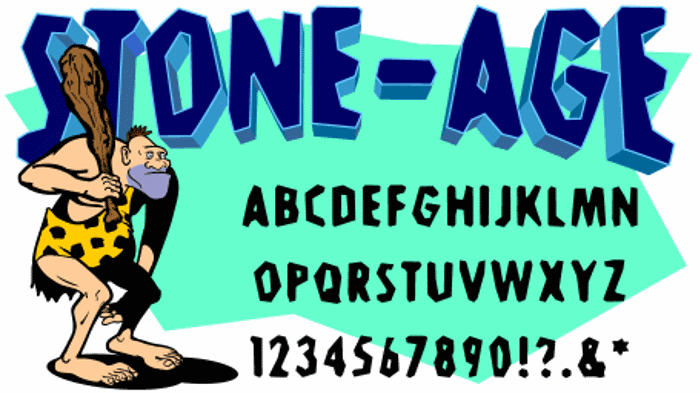
Stone Age Font
Stone-Age Style
Urg! Gur-No Ko-Lak! Font Good! Stone-Age has the rough-hewn look of other caveman-style fonts, yet is somehow completely different. Sets well at point sizes 18 and above, but still manages to read well at smaller sizes. Has only minimal punctuation. Knock yourself out with it anyway.